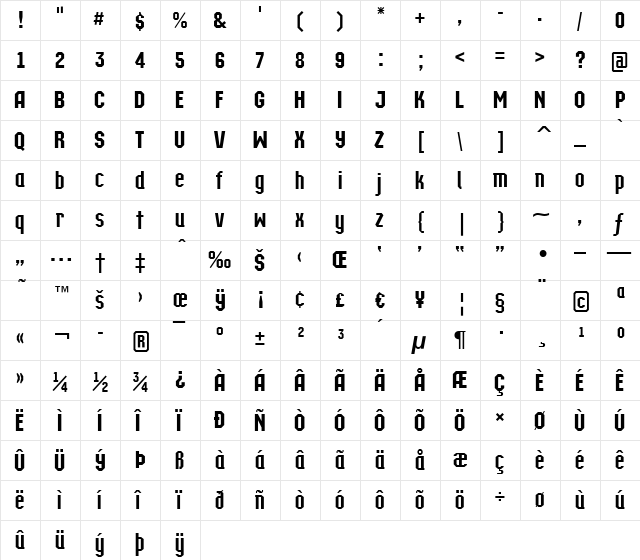
a_Technocrat DemiBold
| Designer | W.Chufarofsky & M.Slutsker |
Design Context for a_Technocrat Typeface
a_Technocrat has a distinctly futuristic character, with geometric precision and clean angles that feel at home in technology, gaming, and sci-fi contexts. Its bold stroke weight gives it real presence on the page.